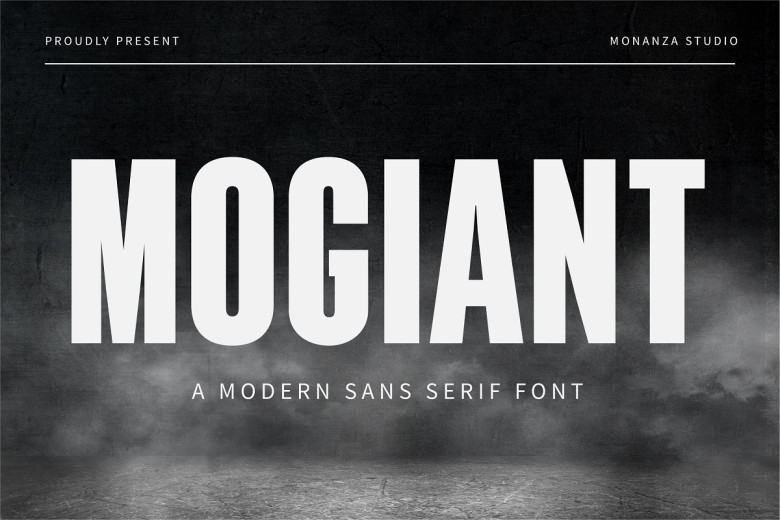
Mogiant Font
Mogiant, a modern sans serif typeface designed with an eye-catching appearance, was intended to stand out. This font can be utilized across various graphic design tools.
Mogiant Sans Serif Font